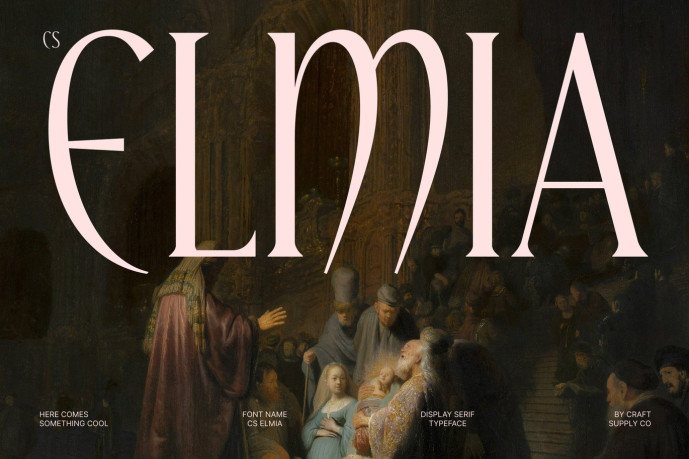
Elmia – Modern Serif Font
CS Elmia – Modern Serif Font: Where Editorial Sophistication Meets Timeless Luxury Tall Proportions and Refined Serif Details This is a modern serif font designed to embody luxury, sophistication, and timeless beauty. Featuring high-contrast strokes, tall proportions, and sharp elegant serifs, it creates a striking visual presence that feels both graceful and authoritative. Its refined construction enhances readability while delivering the polished aesthetic expected from premium typography.
Feminine Sophistication with Editorial Appeal This font exudes a sense of femininity and elegance. The delicate balance between dramatic contrast and slender proportions creates a graceful rhythm across every character, making the font ideal for designs that seek to communicate exclusivity, beauty, and modern refinement. Its sophisticated personality feels equally at home in contemporary fashion campaigns and classic luxury branding.
Timeless Luxury for Premium Visual Identities By combining elegant serif details with high-contrast structure, creates a distinctive visual identity that transcends trends. Its timeless character conveys prestige and confidence, while its clean, modern execution ensures versatility across both print and digital media. The result is typography that feels luxurious, memorable, and effortlessly stylish.
Perfect for Magazines, Beauty, and Editorial Design Perfect for premium packaging, beauty products, perfume, magazine layouts, editorial headlines, luxury logos, invitations, advertising campaigns, product labels, and high-end visual identities. Its elegant letterforms make it ideal for typography that communicates sophistication, femininity, and timeless luxury.